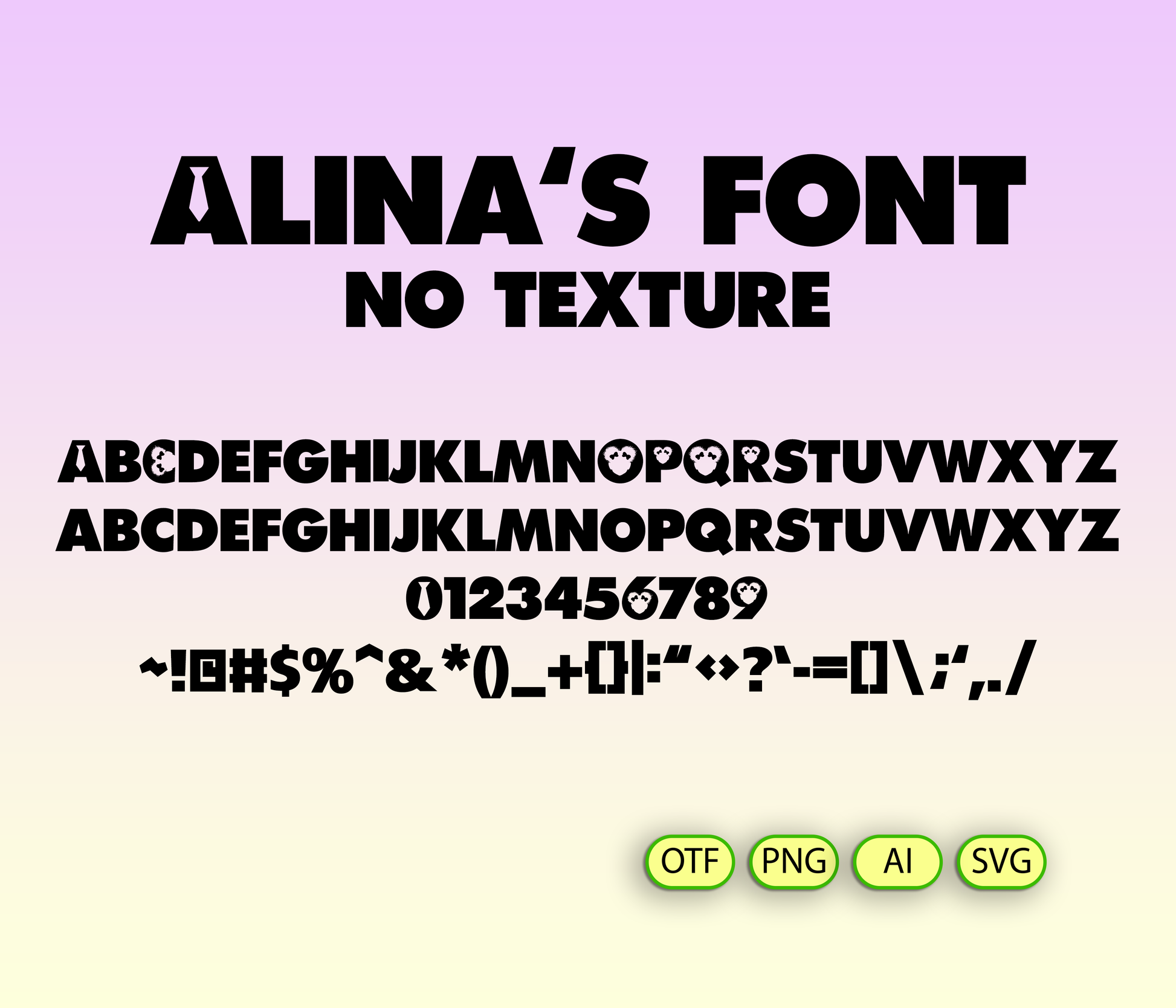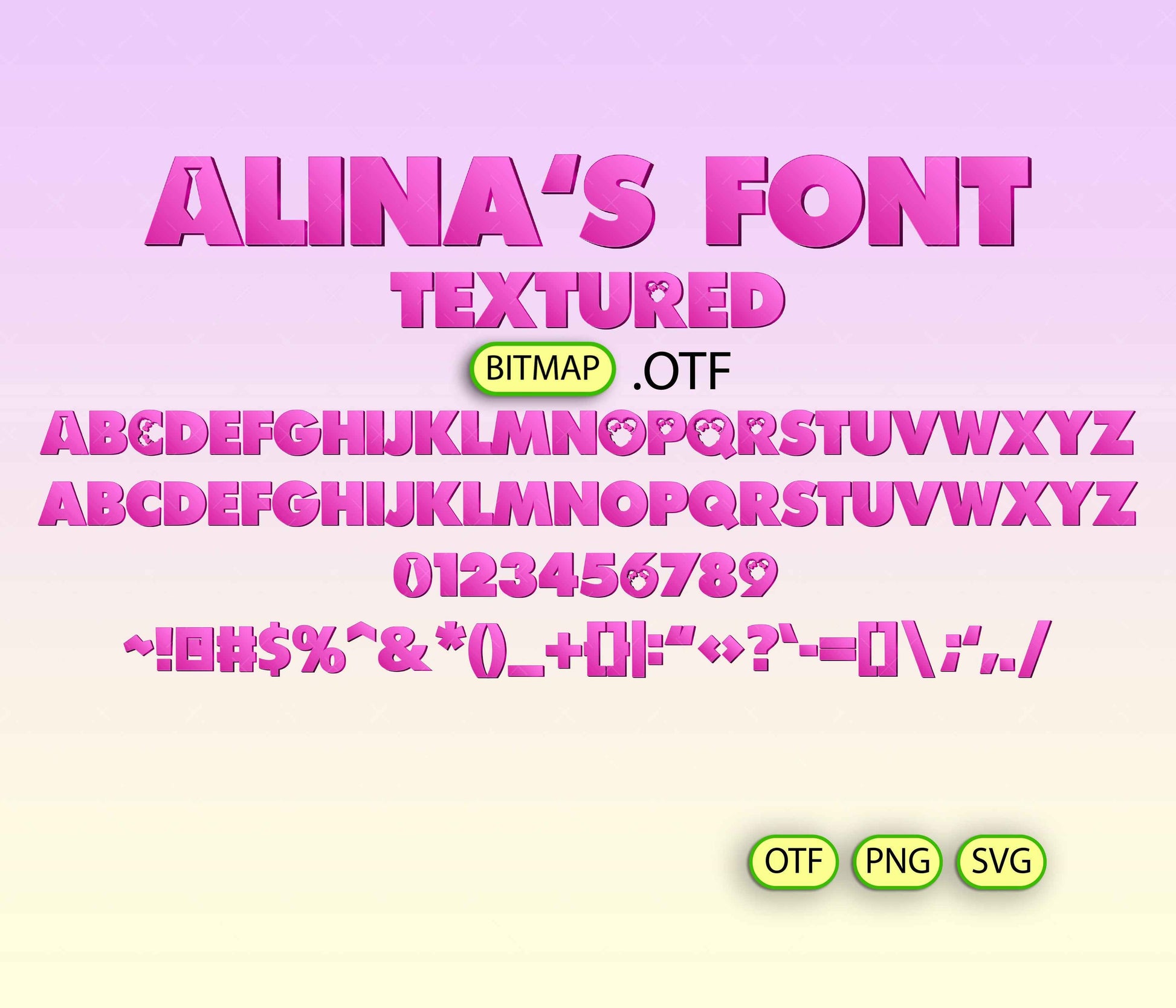
Executive Infant Chic Girl Font Textured
Executive Infant Chic: Pink Version
Step into the stylish and witty world of a business-savvy baby with our special Executive Infant Chic: Pink Version font, inspired by an animated film where a suit-wearing, briefcase-carrying infant pairs up with his older brother to navigate the corporate jungle. This font captures the essence of the movie's unique blend of business-like sophistication and playful childlike charm, all wrapped up in a delightful pink hue. Each character in the font is designed to echo the cheeky, confident, and charming personality of a pint-sized boss, making it perfect for projects that aim to blend a touch of humor with stylish flair.
What Font is Executive Infant Chic Font?
Think of a typeface that combines the boldness of a corporate executive with the whimsy of a child's imagination. Our Executive Infant Chic: Pink Version font is carefully crafted to reflect amusing and adorable aesthetics, with a nod to crisp, business-like undertones. It includes an extensive character set, featuring alphabets, numbers, and special symbols, providing a comprehensive solution for branding, marketing, and design projects that require a blend of professionalism and fun.
What Can You Do With Executive Infant Chic Font?
The Executive Infant Chic: Pink Version font is versatile and ideal for various creative and engaging applications:
• Textured and FREE Non-Textured Variants: Each font is available in both a playful, child-like style and a clean, non-textured version for diverse design needs.
• Comprehensive Character Set: Offers a wide range of characters for complete design versatility.
The Executive Infant Chic: Pink Version font is more than just a typeface; it's an invitation to a charming and stylish world of imagination.